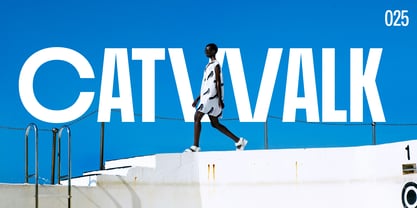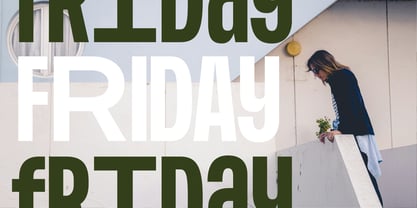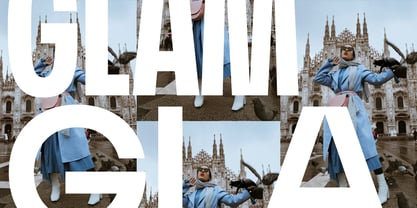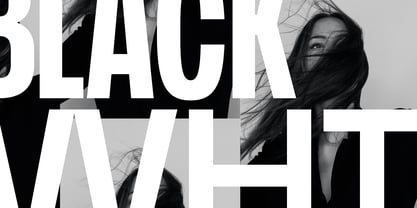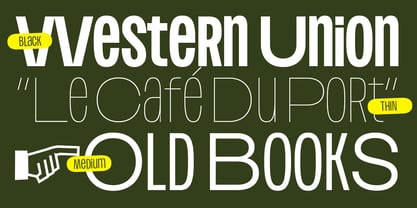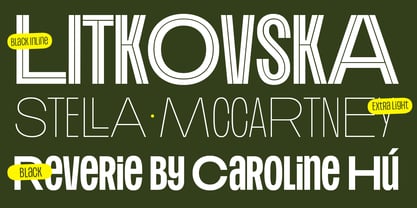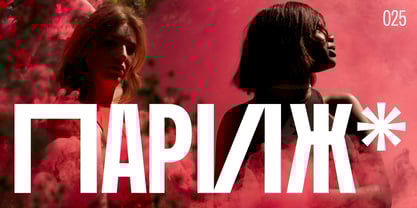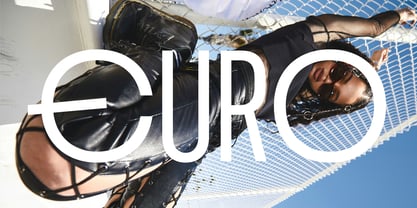
Plex beta
by RodrigoTypo
The Plex beta Font Family was designed by Rodrigo Araya Salas and published by RodrigoTypo. Plex beta contains 9 styles and family package options. More about this family
"Plex Beta" is a typeface family containing 09 styles and capitalized alternatives that expands to create entertaining titles. It also contains the Cyrillic alphabet. It is a sans, clean typeface perfect for use in titles.